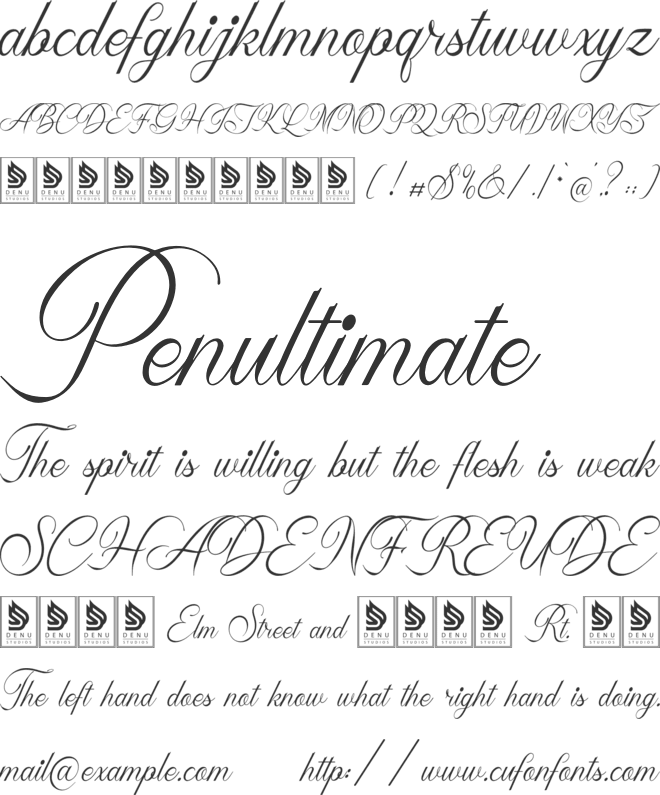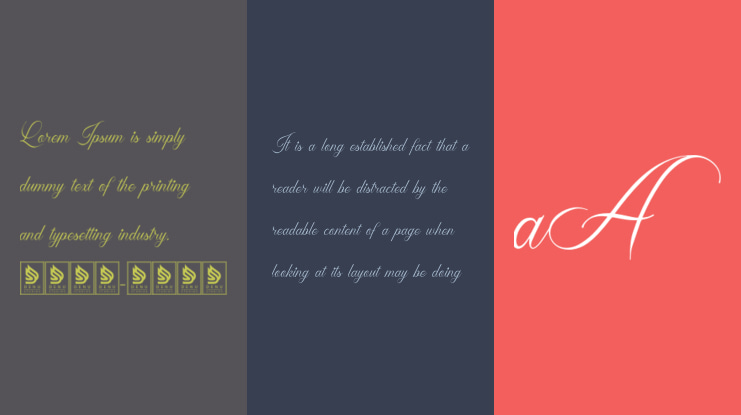
Valeysoul | Classic Calligraphy, is suitable for any projects such as: logos, branding projects, homeware designs, product packaging, mugs, quotes, posters, shopping bags, t-shirts, book covers, name card, invitation cards, greeting cards, label, photography, watermark, special events, and all your other lovely projects that need a Calligraphy taste.